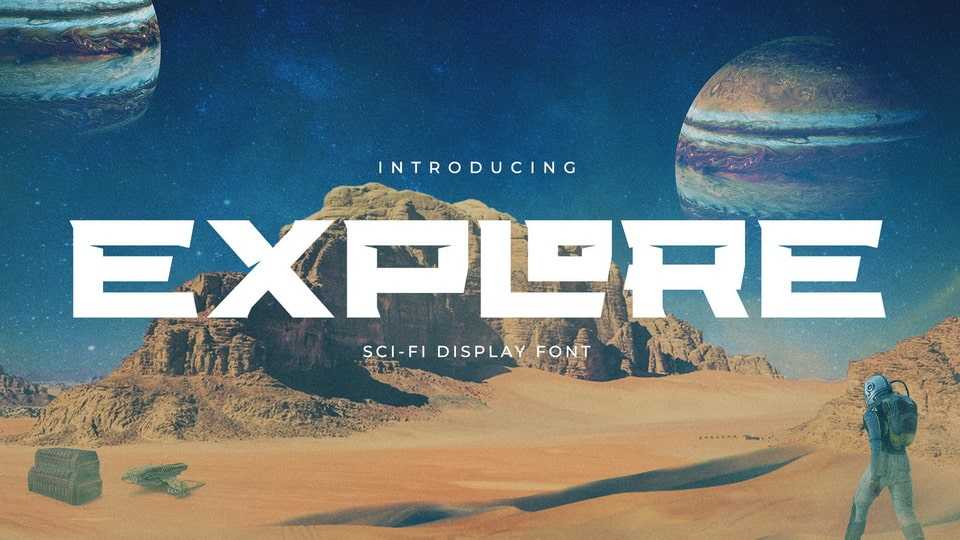
Download Explore Sci-fi font, a typeface that plunges your text into the sleek and futuristic realms of science fiction. Its sharp, angular letterforms evoke advanced technology and interstellar voyages.